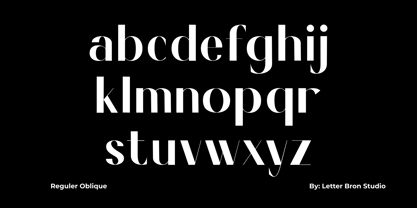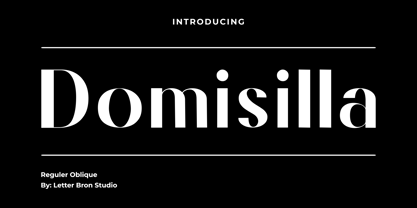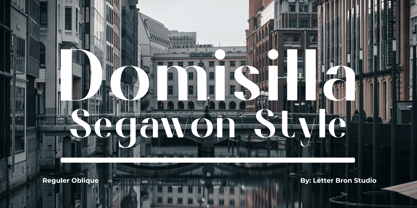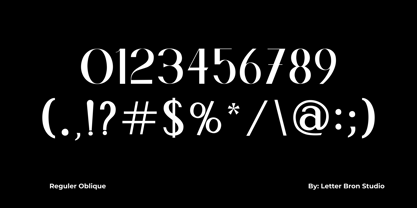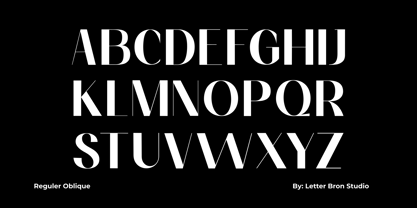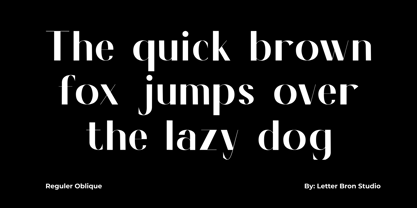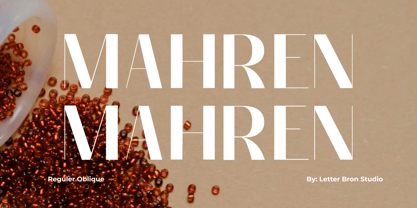
Domisilla
by Letter Born Studio
The Domisilla Font Family was designed by Firman Satrio and published by Letter Born Studio. Domisilla contains 2 styles and family package options. More about this family
Domisilla is a typeface that radiates elegance and softness in every curve. Inspired by classic styles with a modern touch, Domisilla is the perfect choice for design projects that demand a luxurious and professional feel.
This font features a light yet confident structure, with smooth and slightly curved letterforms that convey a feminine, artistic, and expressive character. The available oblique style adds a sense of movement and sophistication, making it ideal for graceful visual emphasis.
Designers: Firman Satrio
Foundry: Letter Born Studio